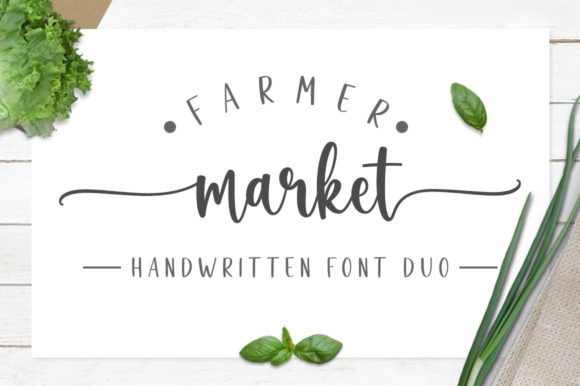
Introducing Farmer Market Font, the ultimate script font family designed by Graphix Line Studio. Are you looking for the perfect font to elevate your farmhouse signs and add a touch of chic and cheerfulness to your crafts? Look no further! Farmer Market Font is the answer to your needs.
This stunning font family consists of two fonts that complement each other perfectly. Whether used together or separately, the fonts will add a unique and eye-catching touch to your designs. With its flowing script style, Farmer Market Font is perfect for creating logos, invitations, posters, and so much more.
What's more, Farmer Market Font is PUA encoded, which means you can easily access all of its glyphs and swashes. So, you can customize your designs with ease and take your creations to the next level.
Farmer Market Font is the best font for farmhouse signs, and it's perfect for anyone looking to add a touch of rustic charm to their designs. Whether you're a graphic designer, crafter, or hobbyist, Farmer Market Font is a must-have in your font collection.